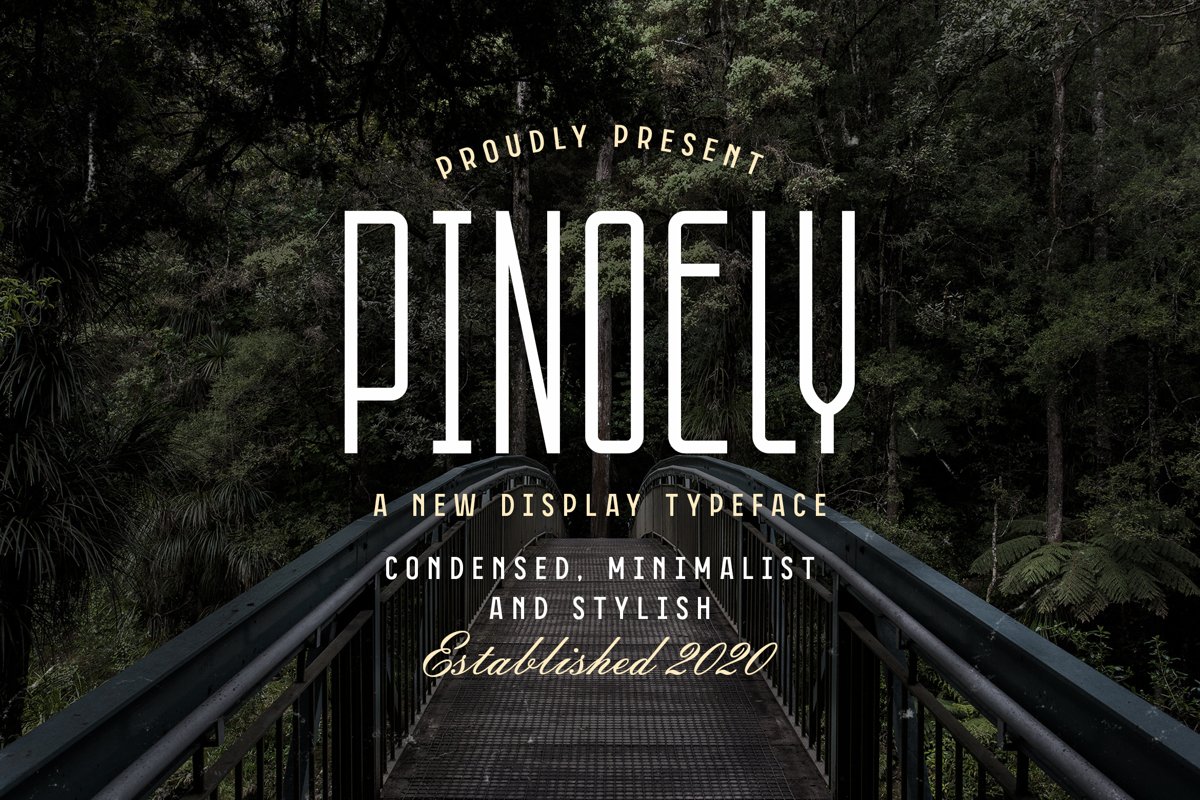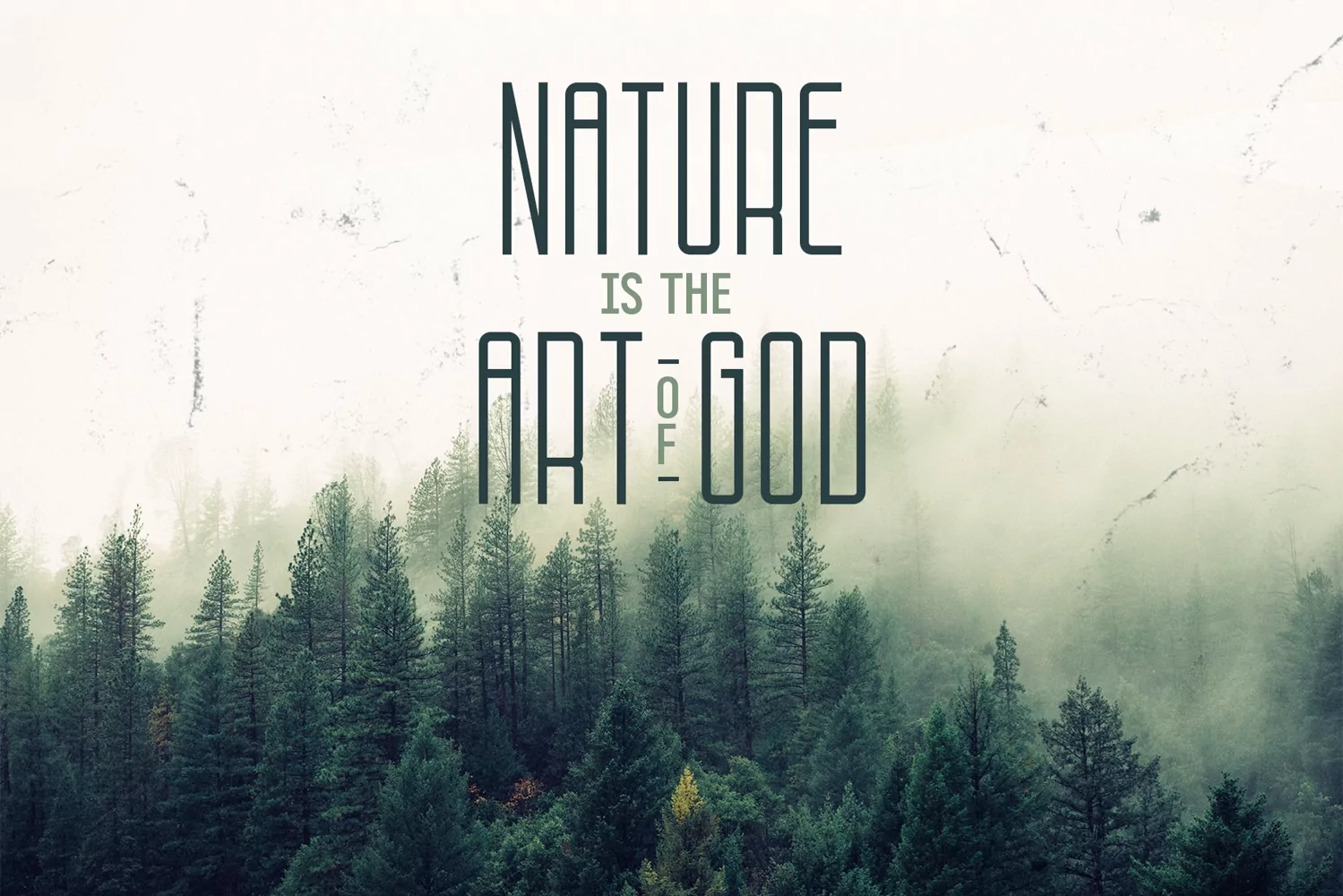
Pionely is a display typeface. perfect for display, quotes, merchandise, packaging, branding, logo, logotype, emblem, badges, crafting needs, business card, and many more.
Pinoely